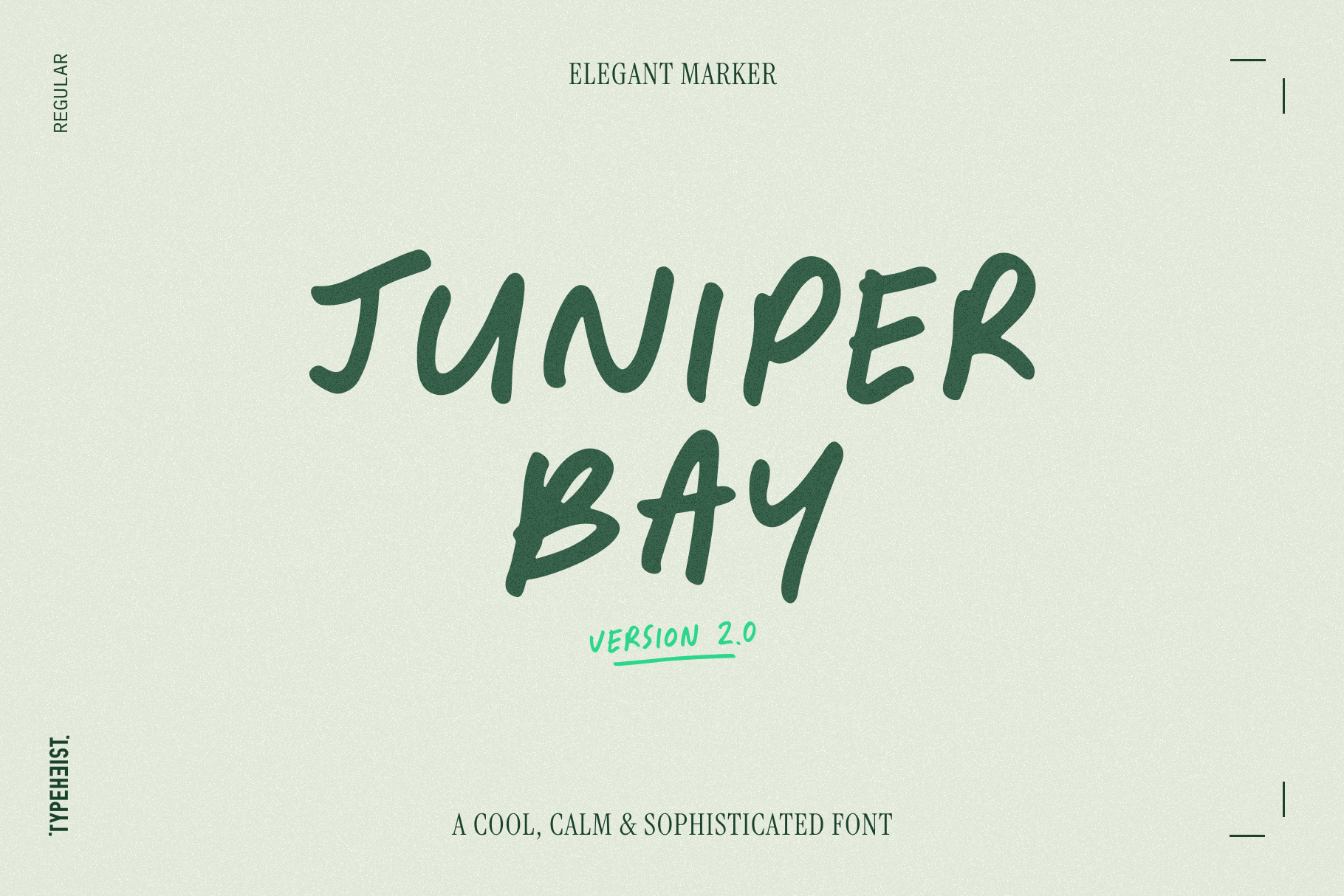
Juniper Bay Handwriting Font
Version 2.0 out now!
- Improved character legibility
- Improved kerning
- Better spacing
- A brand new stylistic alternates set
- New custom ligatures
- 42 new scribble illustrations
- New multi-lingual characters
Juniper Bay is a cool, calm & sophisticated marker typeface with an organic feel and effortless vibe.
Bringing a natural, handwritten elegance, it's perfect for your next design. Whether you're crafting a logo, writing poetry, creating social media graphics, or working on photography, Juniper Bay's versatility will take your work to the next level.
Juniper Bay has over 135 custom letter combinations and each ligature has been carefully created to ensure that each letter flows seamlessly into the next. The result is a beautiful, cohesive look that will bring warmth and casual charm to any design.
- Juniper Bay Regular
- 560+ total glyphs (including 135+ extra custom ligatures)
- A stylistic alternates set with 62 characters (A-Z, a-z and 0-9)
- 42 scribble illustrations accessible via keyboard shortcuts
- Standard english characters
- Accented characters (Latin-1)